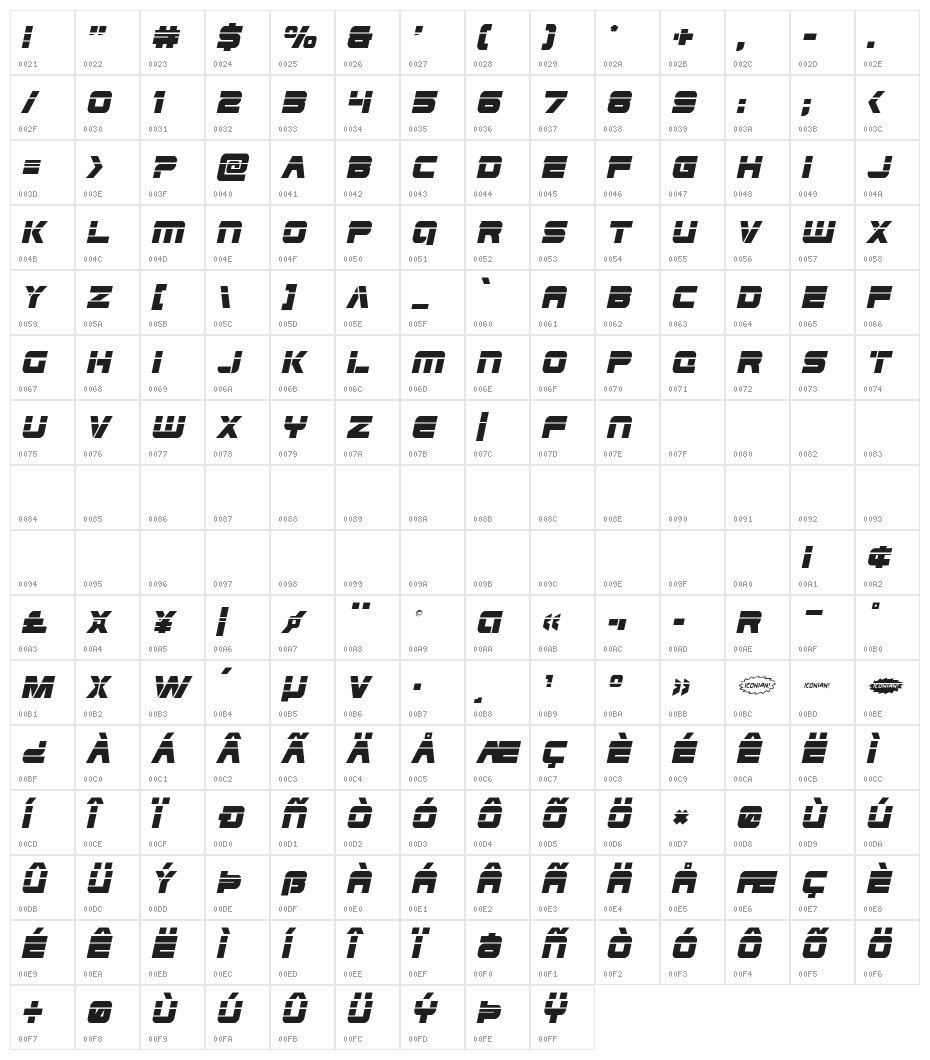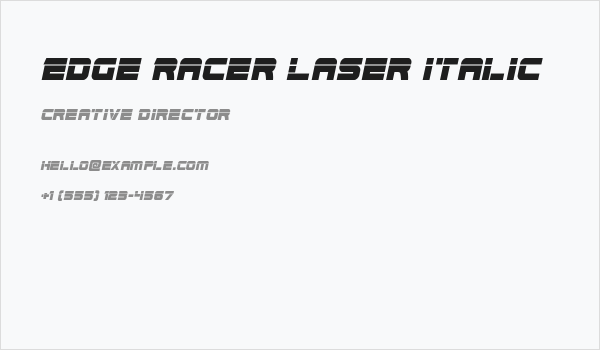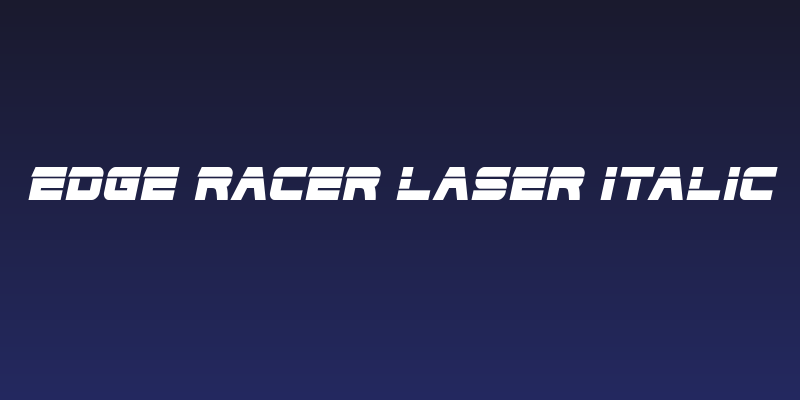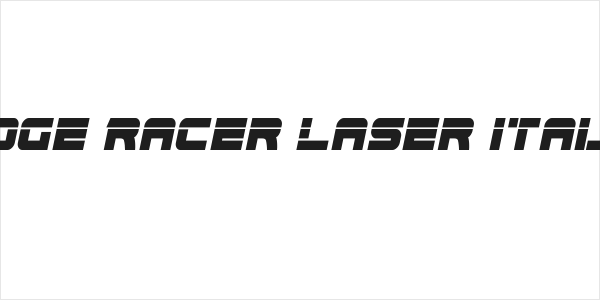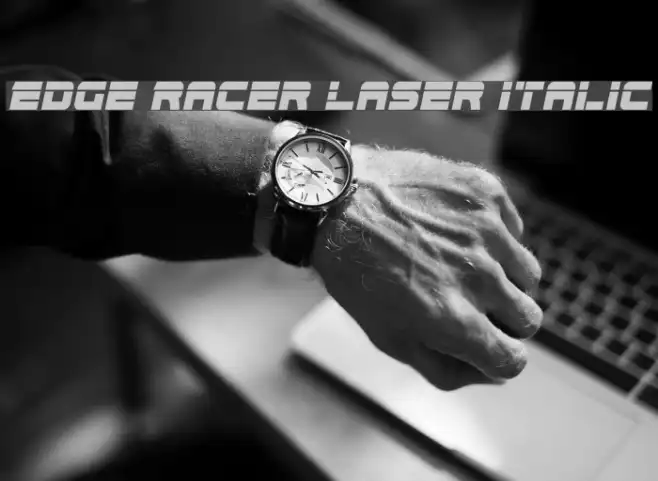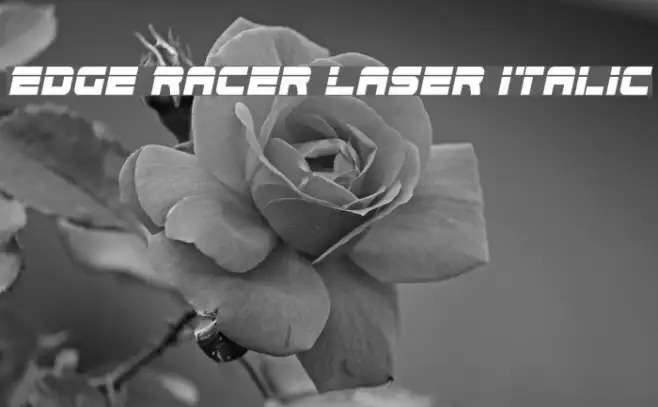
Edge Racer Laser Italic Font
Edge Racer Laser Italic Description
This font features a futuristic and dynamic design with a strong emphasis on angular shapes and sharp edges. The characters are bold and italicized, giving a sense of motion and speed. The strokes are thick and consistent, creating a high contrast that enhances readability. The overall appearance is sleek and modern, suitable for projects that require a cutting-edge and energetic look. The spacing between characters is tight, contributing to its compact and impactful style.
| Proposed Projects | Ideal for sports branding, automotive advertisements, video game titles, and tech-related logos. |